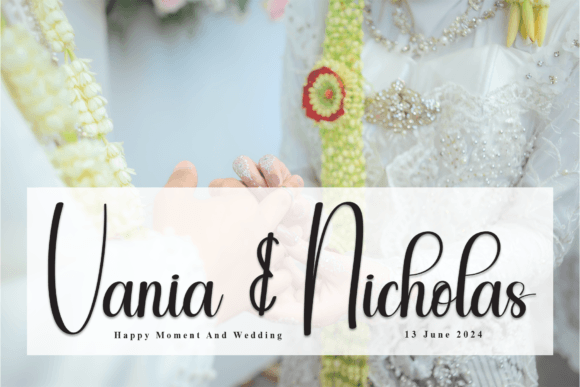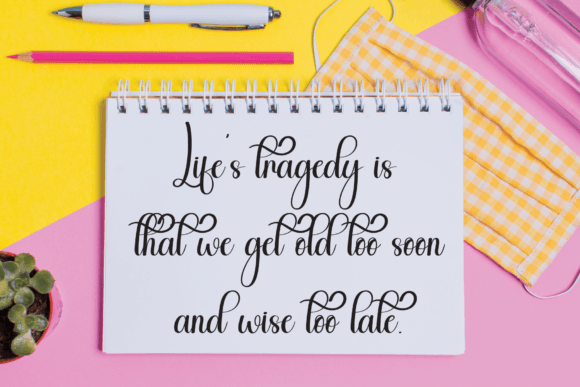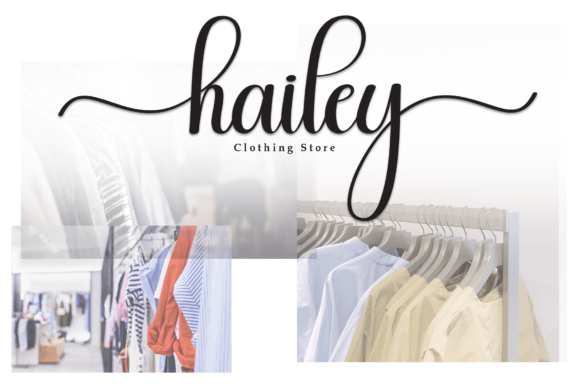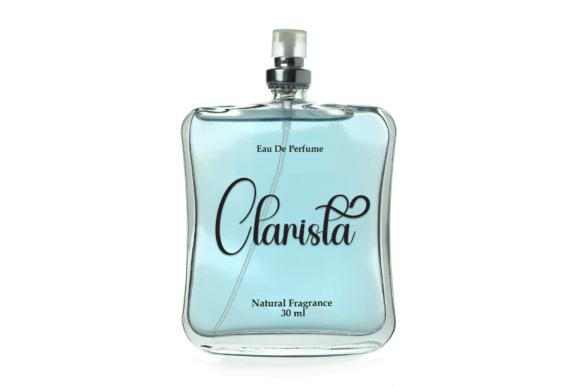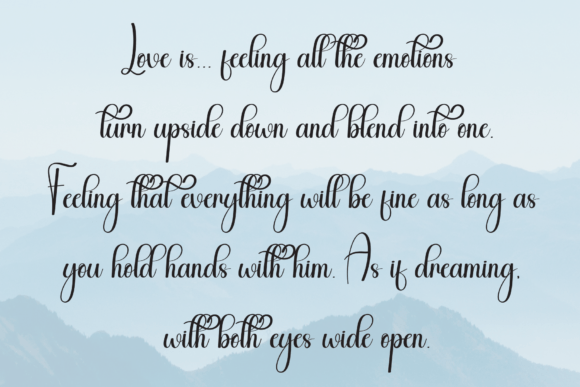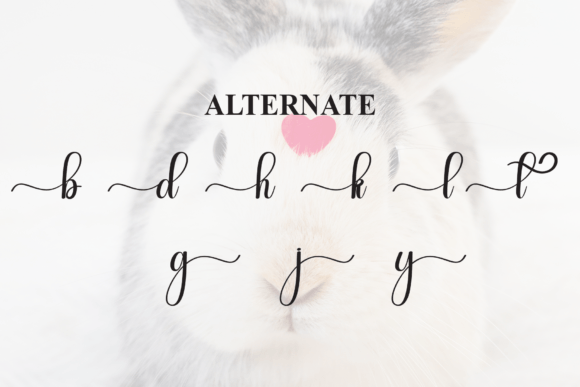
The Sweetest Addition to Your Design Arsenal: Bunny Font
I still remember the time I was working on a wedding invitation project, and I just couldn’t find the right font to give it that personal touch. The client wanted something sweet, friendly, and playful, but not too over-the-top. I scoured the internet, tried out dozens of fonts, and still, nothing seemed quite right. That’s when I stumbled upon Bunny Font, and it was love at first sight! 💕
In this article, I’ll share my experience with Bunny Font, its features, and how to make the most of it in your designs. Whether you’re a designer, crafter, or creative hobbyist, you’ll find this font to be a valuable addition to your toolkit.
A Personal Review of Bunny Font
- ✨ Sweet and friendly handwritten style that’s perfect for wedding invitations, cards, and other designs that need a personal touch
- ✅ Easy to read and understand, even at small sizes
- 🎉 Fun and playful vibe that’s sure to bring a smile to your audience’s faces
- 💻 Highly versatile and works well in a variety of design contexts
While Bunny Font is an excellent choice for many projects, there are a few things to keep in mind:
- 🤔 Limited character set: Bunny Font might not have all the special characters or glyphs you need for a specific project
- ⚠️ May not be suitable for very formal or corporate designs, as it’s quite playful and informal
The Story Behind Bunny Font
Bunny Font was designed with love and care by a talented font creator who wanted to bring a touch of warmth and personality to digital designs. The font’s sweet, handwritten style is perfect for anyone looking to add a bit of whimsy to their work.
Q: What is Bunny Font?
A: Bunny Font is a sweet and friendly handwritten font, perfect for adding a personal touch to your designs.